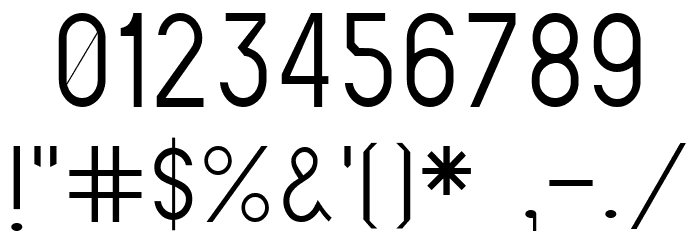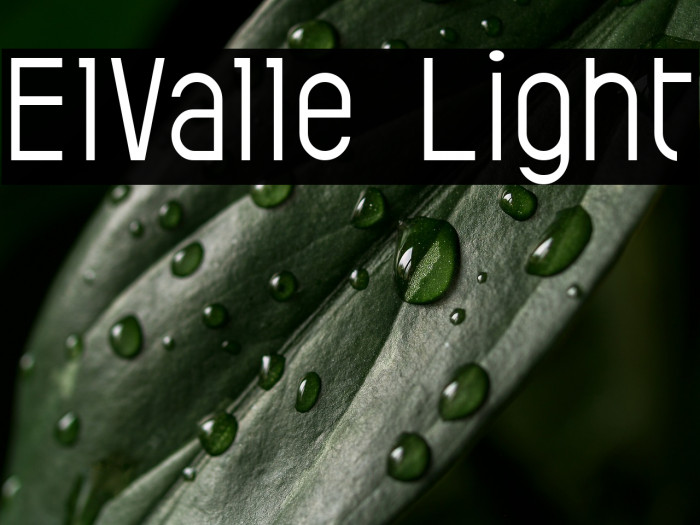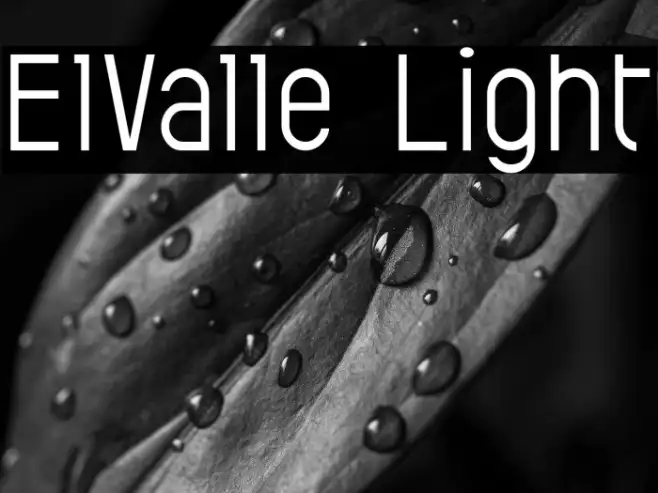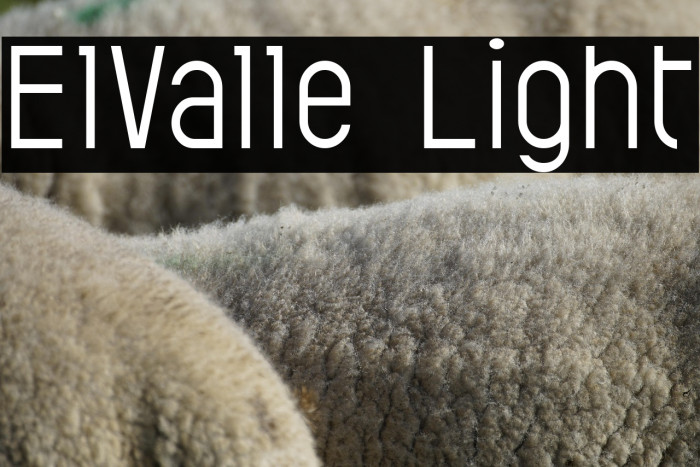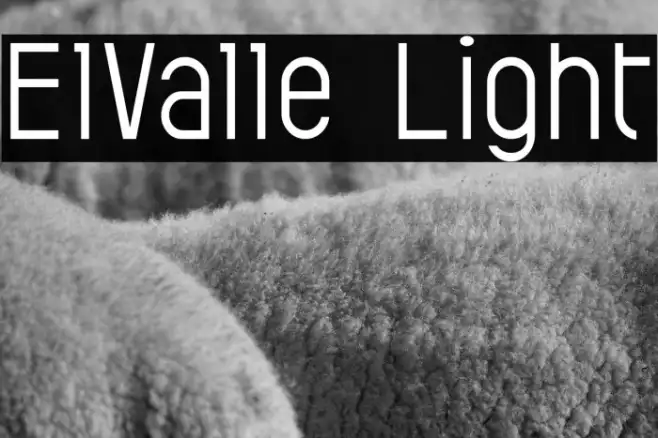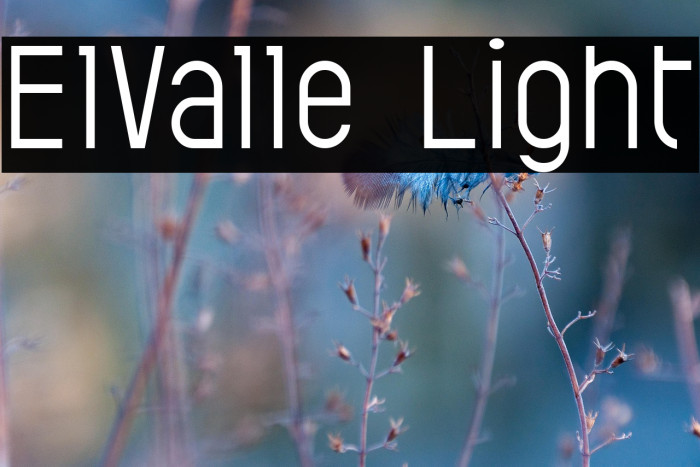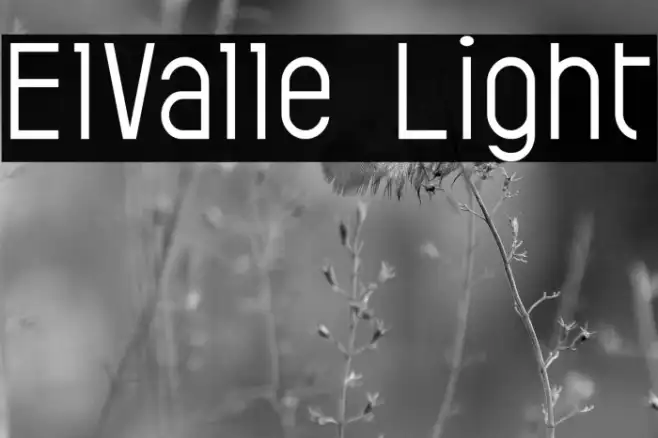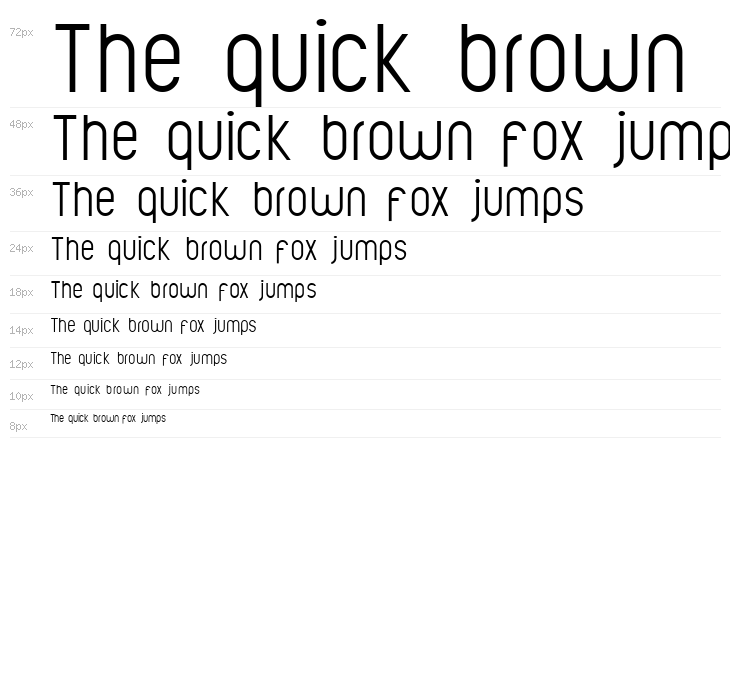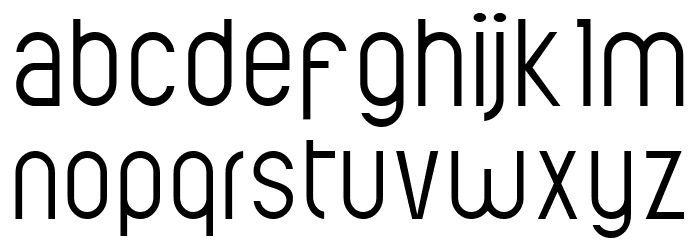
ElValle Light Font
ElValle Light Description
This font features a clean and modern sans-serif design with a light weight, making it ideal for minimalist and contemporary projects. The characters are evenly spaced with a slightly condensed width, giving it a sleek appearance. The uniform stroke width and low contrast contribute to its readability and versatility. Its geometric shapes and smooth curves create a harmonious and balanced look, suitable for both digital and print media. The font's simplicity and elegance make it a great choice for branding, editorial design, and user interfaces.
| Proposed Projects | Ideal for branding, editorial design, user interfaces, and minimalist projects. |